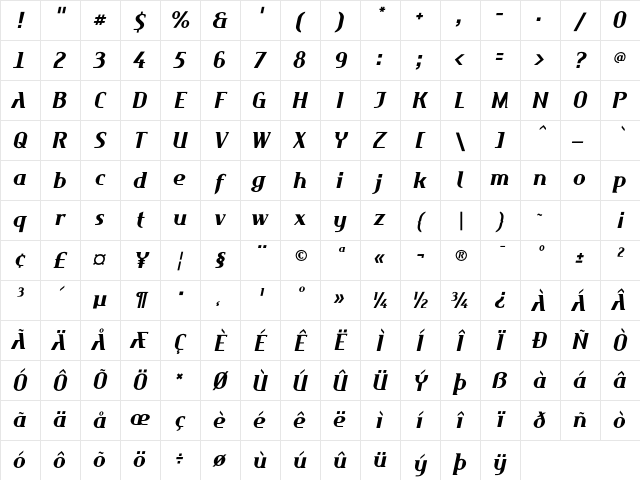
Maverick BoldItalic Free Font
Maverick BoldItalic
Design Context for Maverick
Maverick is a composed and adaptable typeface that performs quietly and consistently across a wide range of design contexts. The slanted form adds forward momentum and visual energy. Its bold stroke weight gives it real presence on the page.
Pro Tip: Use Maverick for emphasis, pull quotes, and subheadings where its slanted energy can add rhythm to the layout.